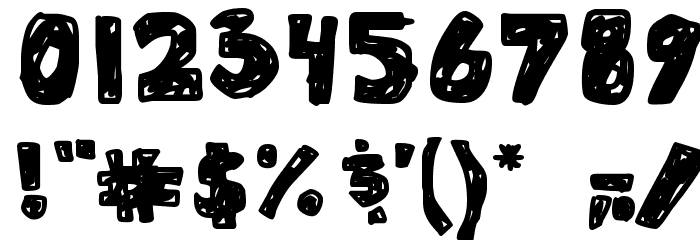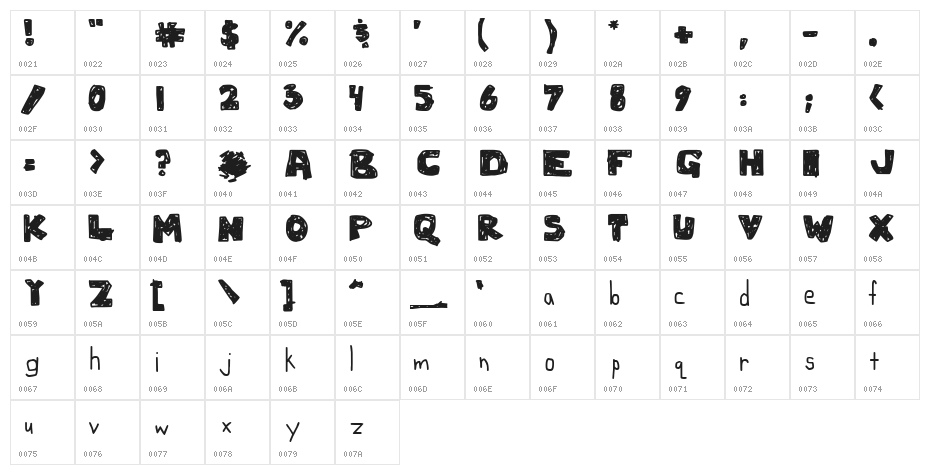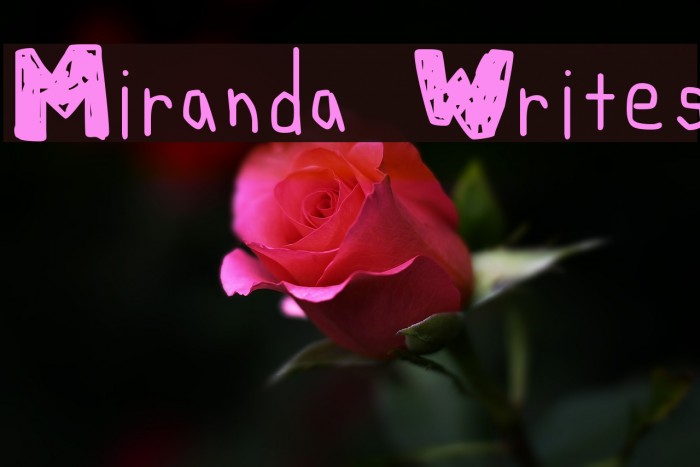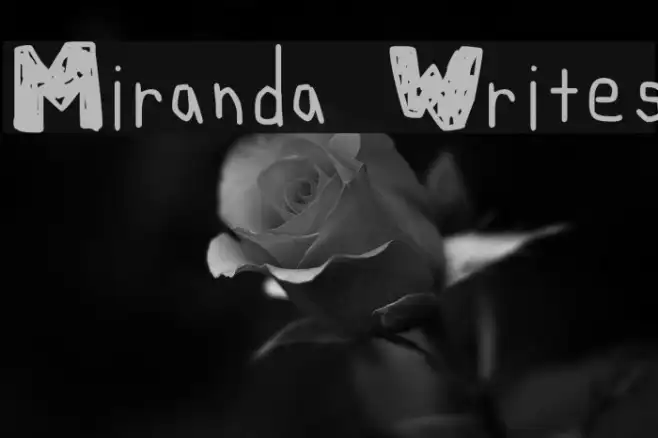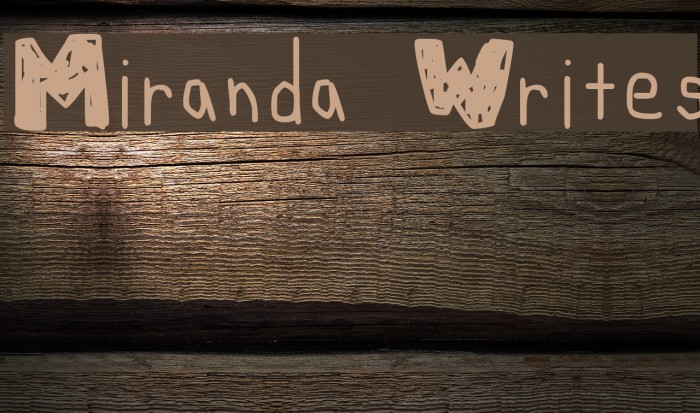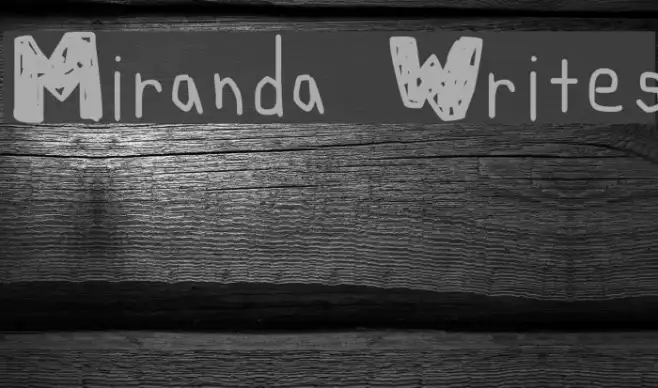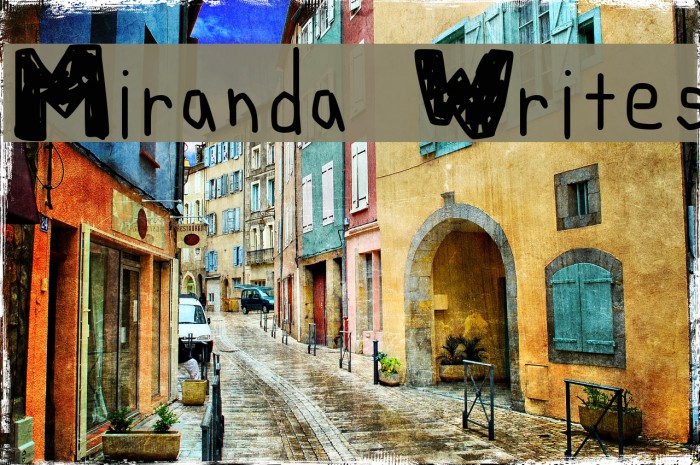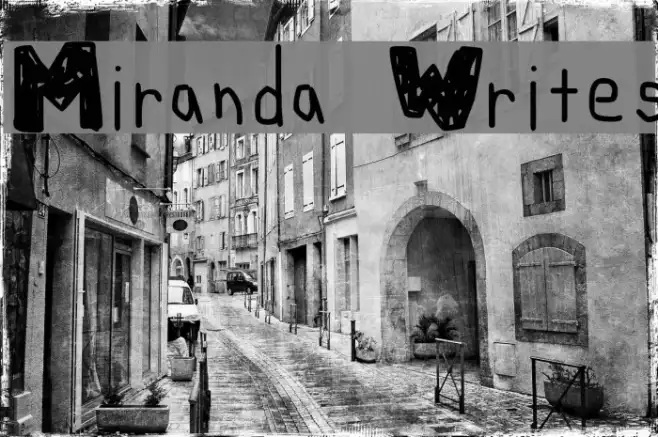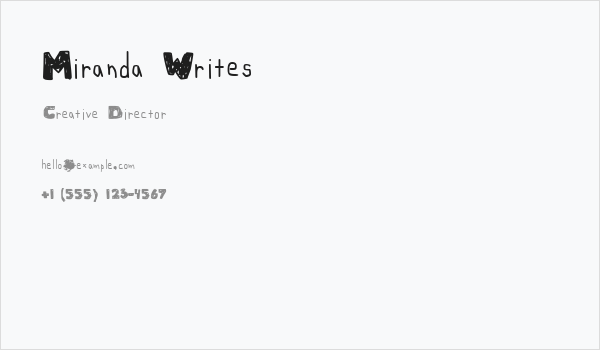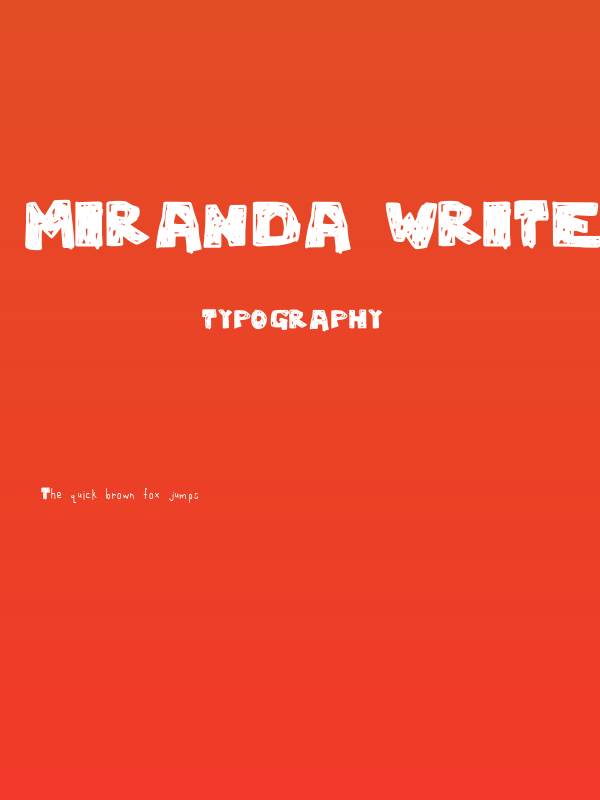
Miranda Writes Font
Miranda Writes Description
This font features a playful and bold style with a hand-drawn appearance. The uppercase letters are thick and have a rough, textured look, giving them a dynamic and energetic feel. The lowercase letters are more streamlined and maintain a casual, handwritten quality. Numbers and special characters follow the same bold, textured style as the uppercase letters, ensuring consistency throughout. The font's unique character is emphasized by its irregular shapes and varying line thicknesses, making it ideal for projects that require a fun and informal touch.
| Proposed Projects | Ideal for children's books, playful branding, posters, and creative social media graphics. |